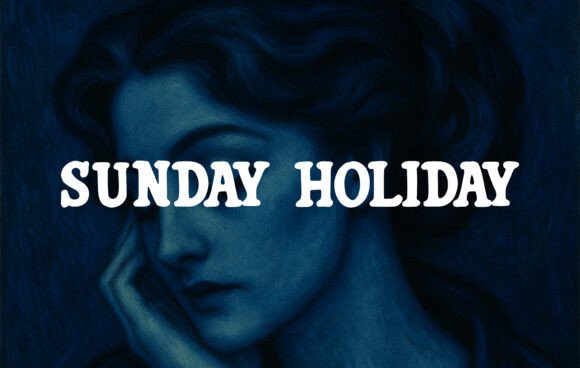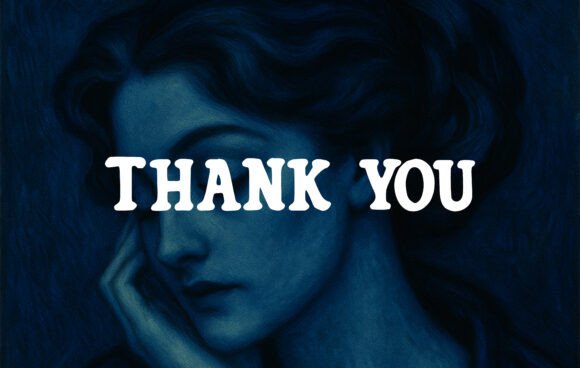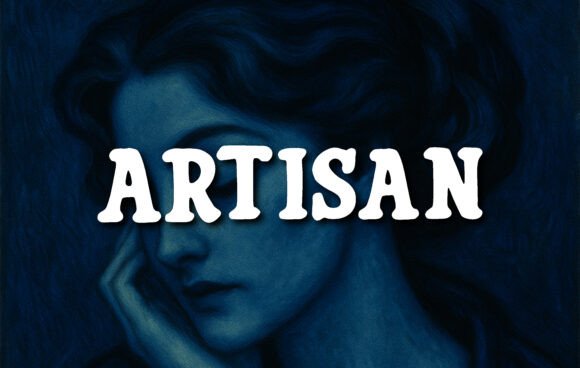
Introducing Artisan Font: The Perfect Blend of Rugged and Refined
In the world of typography, few fonts manage to capture the essence of handcrafted charm while exuding confidence and sophistication. Artisan Font, a slab serif display font, achieves this delicate balance with remarkable precision. Its bold, blocky letterforms, softened by subtle curves and organic edges, make it an instant attention-grabber. Whether you’re a designer, crafter, or simply someone who appreciates the art of typography, Artisan Font is sure to leave a lasting impression.
The Art of Balance: Rugged yet Refined
Artisan Font’s unique blend of rugged and refined characteristics makes it an incredibly versatile typographic solution. The thick strokes and vintage-inspired details evoke a sense of nostalgia, while the subtle curves and organic edges add a touch of sophistication. This balance is crucial, as it allows the font to adapt seamlessly to various design contexts, from modern and minimalist to retro and distressed.
Design Applications: Where Artisan Font Shines
Artisan Font’s versatility is one of its most significant strengths, making it suitable for a wide range of design applications. Here are a few areas where it truly excels:
- Branding: Artisan Font’s bold, confident character makes it perfect for logos, trademarks, and brand identities that require a strong, artisanal presence.
- Packaging: The font’s vintage-inspired details and rugged charm make it an excellent choice for product packaging, particularly for craft, food, or luxury goods.
- Posters: Artisan Font’s attention-grabbing quality and expressive personality make it ideal for posters, flyers, and other large-format designs.
- Editorial Design: The font’s refined side ensures it works beautifully in editorial contexts, such as magazines, newspapers, and books, where a touch of sophistication is required.
Timeless Character: Why Artisan Font Stands Out
In an era where design trends come and go, Artisan Font’s timeless character ensures it will remain a relevant and stylish choice for years to come. Its distinctive personality, born from the perfect blend of rugged and refined elements, allows designers to create unique and memorable designs that stand out from the crowd.
Authentic and Expressive: The Artisan Font Advantage
Artisan Font’s authentic, handcrafted feel makes it an excellent choice for designers seeking to infuse their work with a sense of personality and character. The font’s expressiveness allows it to convey a range of emotions and moods, from confidence and sophistication to warmth and approachability.
Modern and Retro Aesthetics: Artisan Font’s Adaptability
One of Artisan Font’s most significant advantages is its adaptability to both modern and retro aesthetics. Its clean lines, subtle curves, and vintage-inspired details make it a chameleon-like font that can seamlessly integrate into various design contexts. Whether you’re aiming for a sleek, contemporary look or a distressed, retro vibe, Artisan Font is the perfect choice.
In conclusion, Artisan Font is a slab serif display font that offers a unique blend of rugged and refined characteristics, making it perfect for designers, crafters, and anyone seeking to add a touch of handcrafted charm to their work. Its versatility, timeless character, and authentic, expressive personality make it an excellent addition to any design arsenal. Whether you’re working on branding, packaging, posters, or editorial designs, Artisan Font is sure to deliver a distinctive personality that sets your work apart.